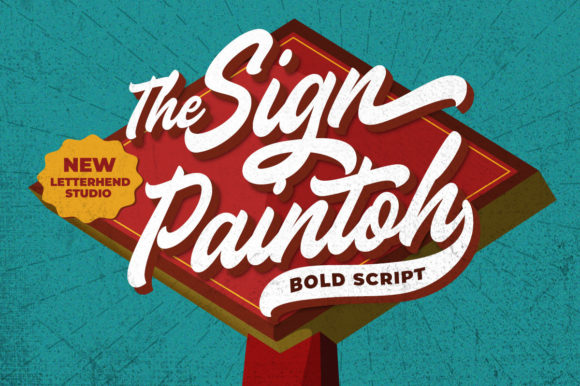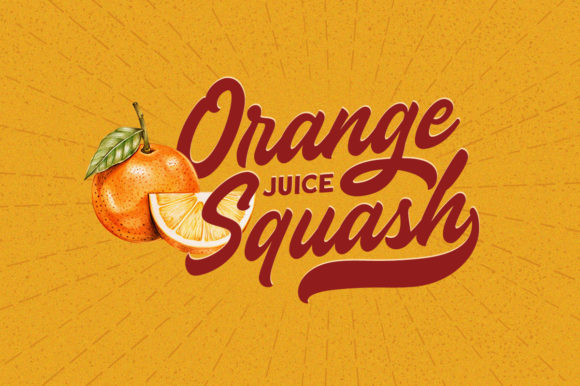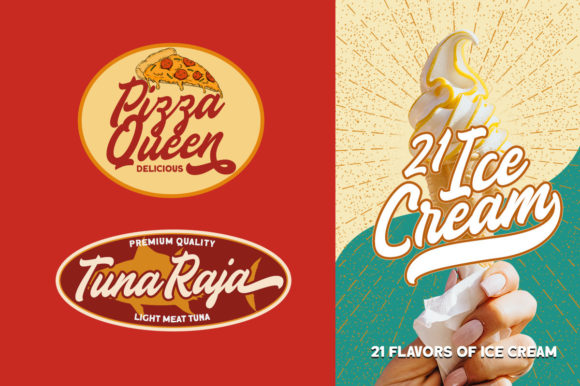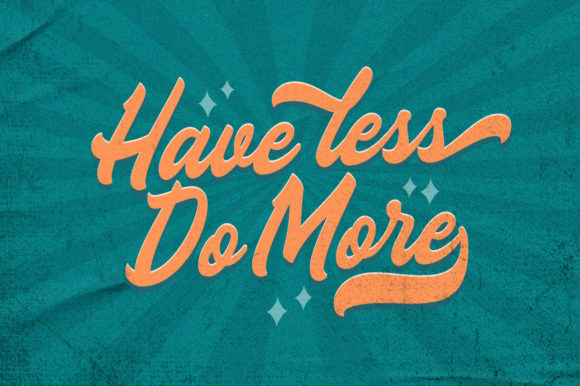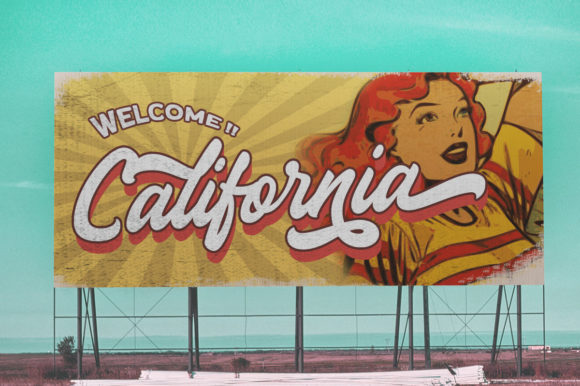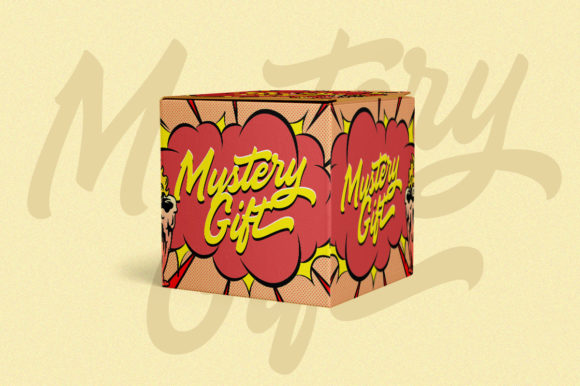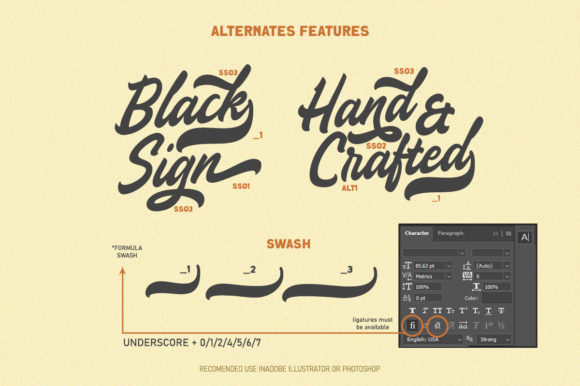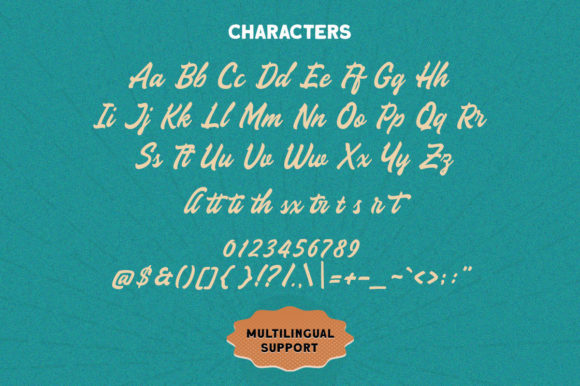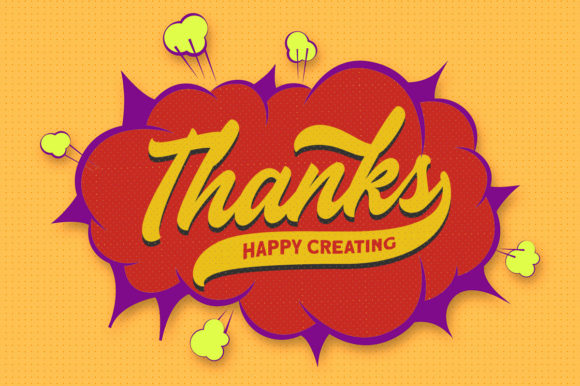
The Sign Paintoh Font
About The Sign Paintoh Font
The Sign Paintoh is a gorgeous and bold handwritten font, crafted to give your headlines and logotype projects a retro touch. This font reads as strong, confident, and dynamic and can add tons of nostalgic character to your designs.